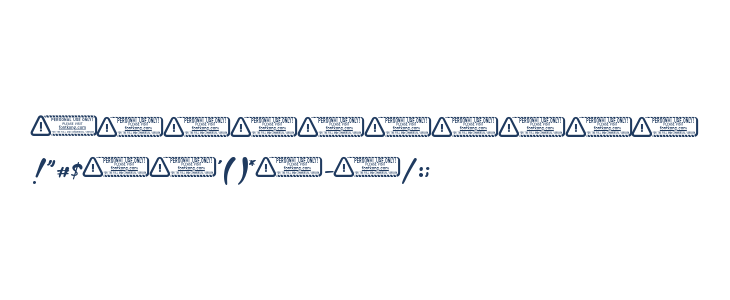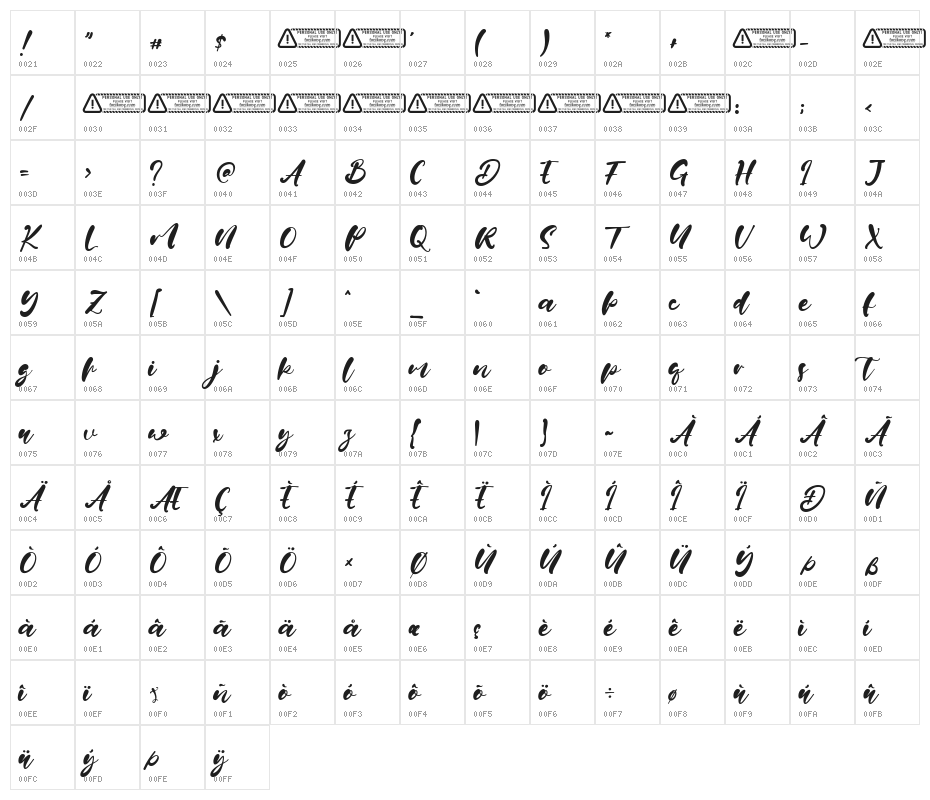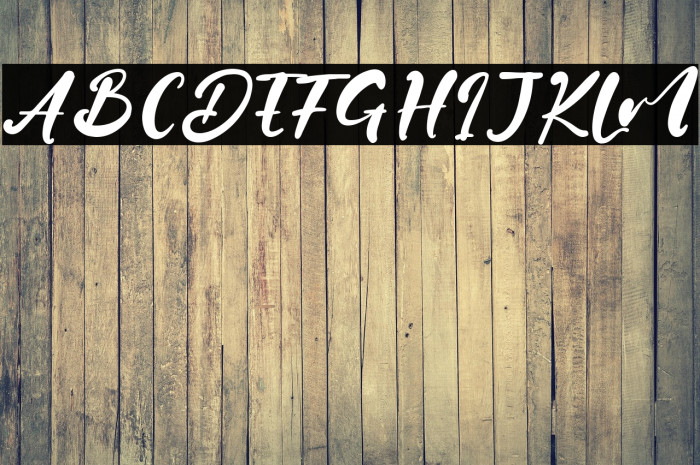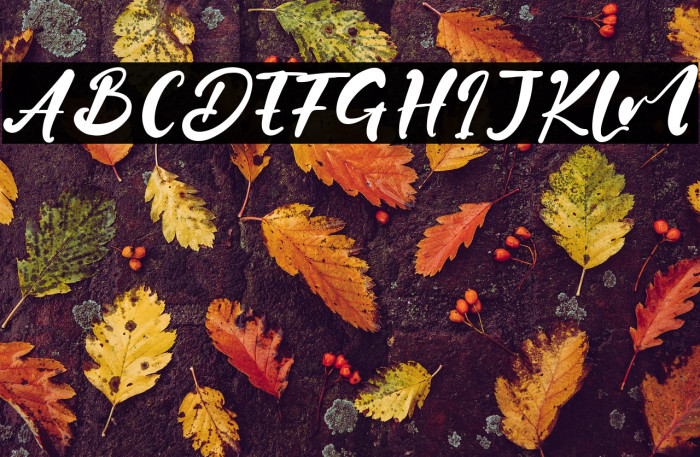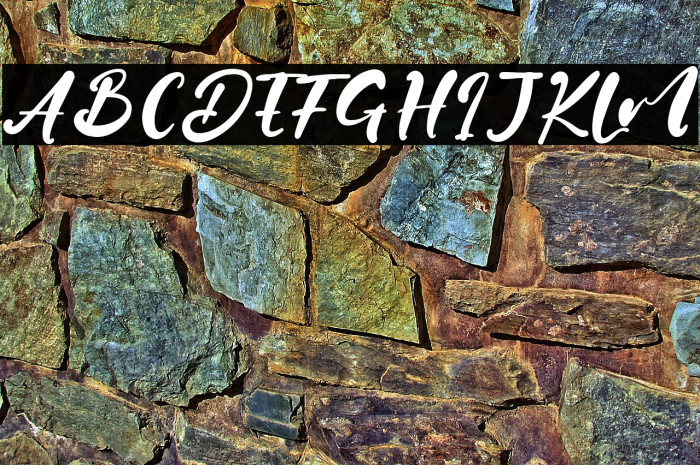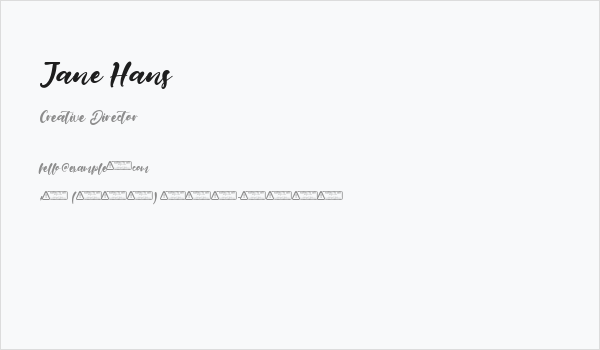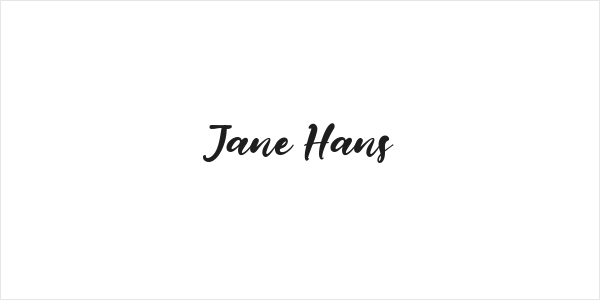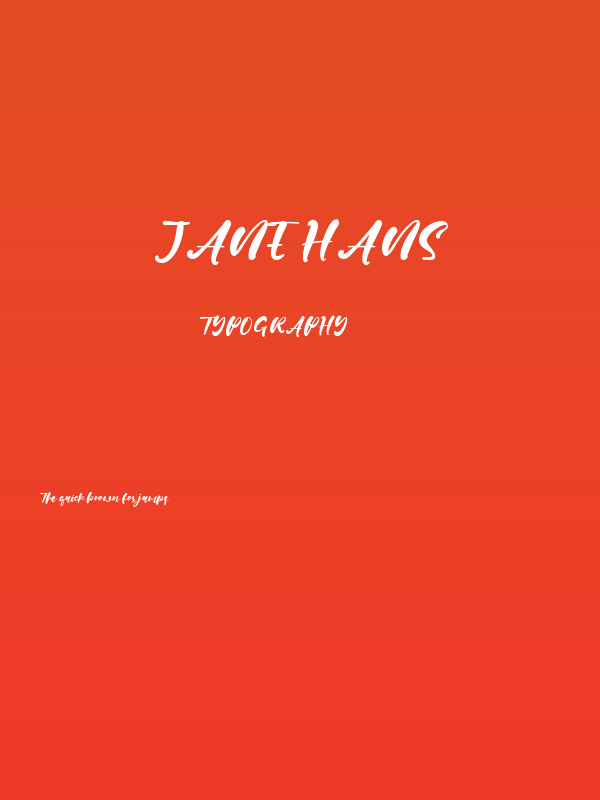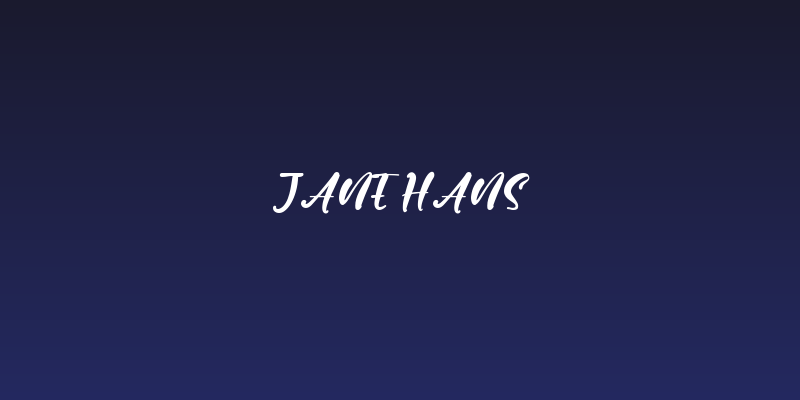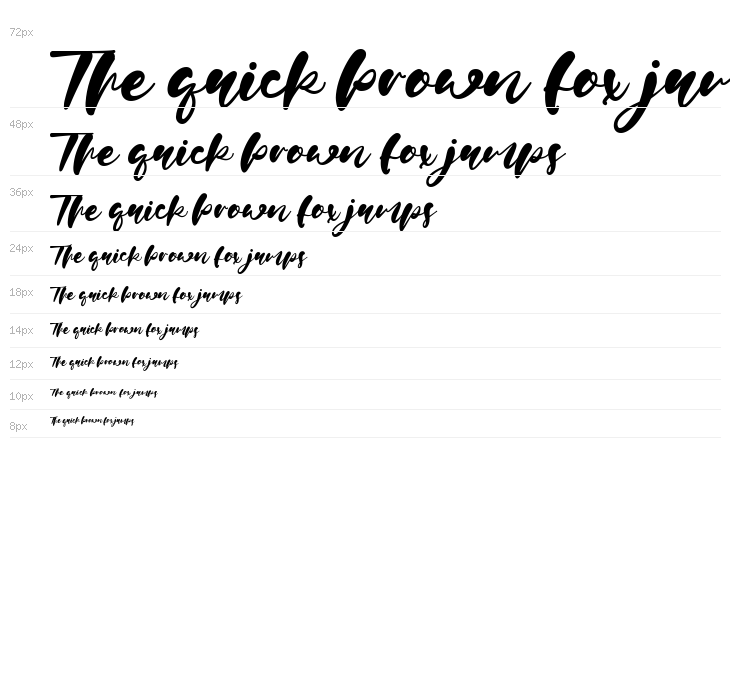
Jane Hans Font
| Anwendungsfall | Logos, Headlines, Invitations |
| Vorgeschlagene Projekte | Ideal for invitations, greeting cards, branding materials, and any project needing a personal touch. |